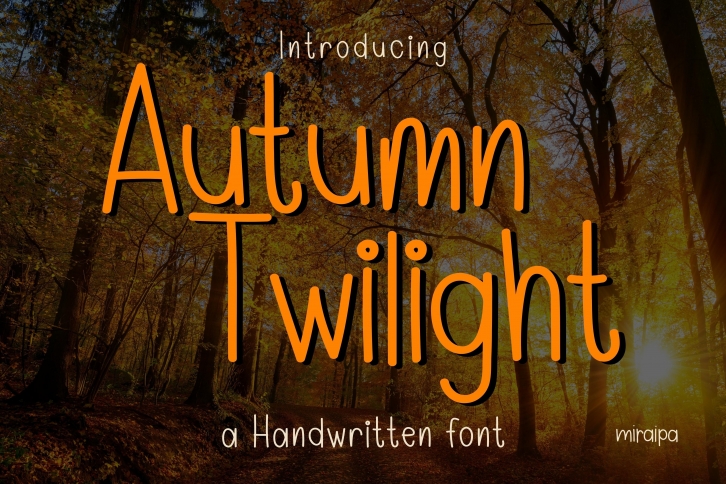
Autumn Twilight is a playful handwritten font designed in a friendly and lovely style. It would be awesome for your diary, planner, and journal, also for projects such as back-to-school, party decorations, party invitations, festival decorations, posters, blogs, clothing, child-related designs, greeting cards, social media posts, or anything that needs a friendly touch. Add it now to your fonts library, and it will bring any of your DIY projects to life.